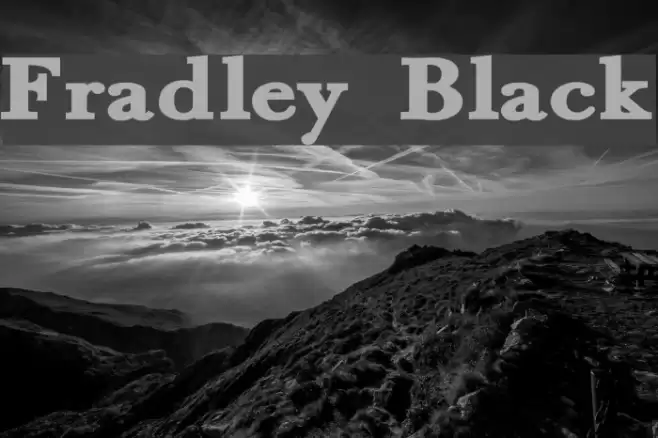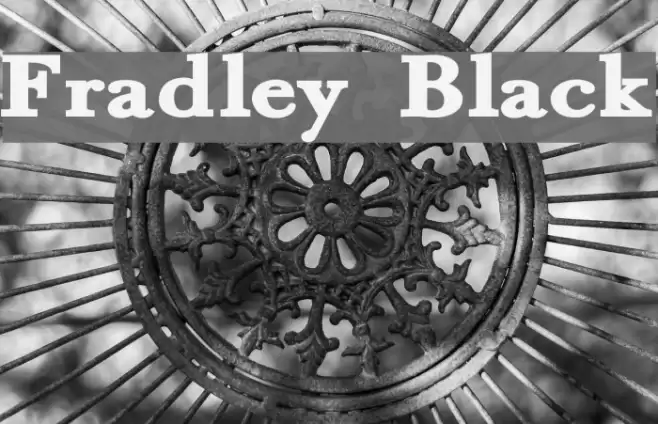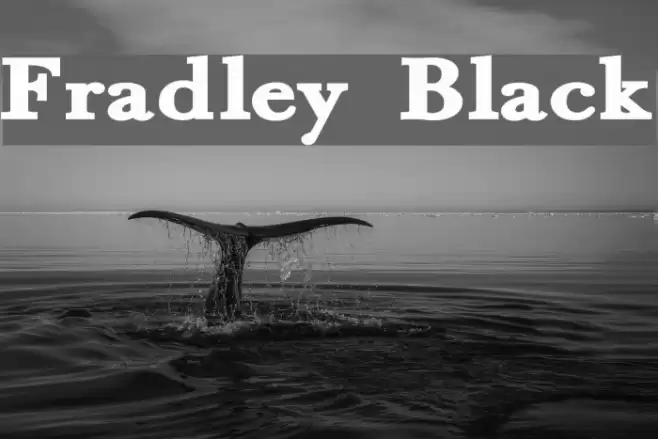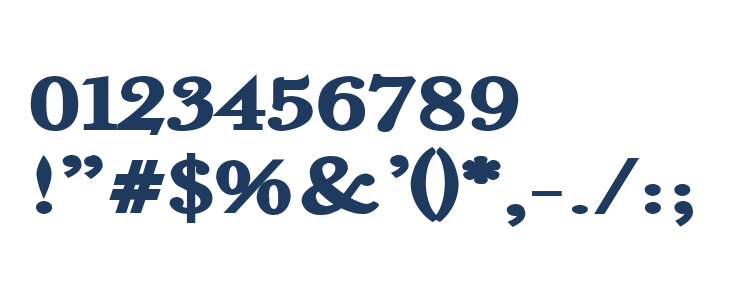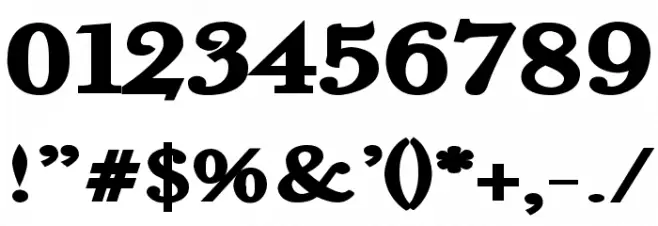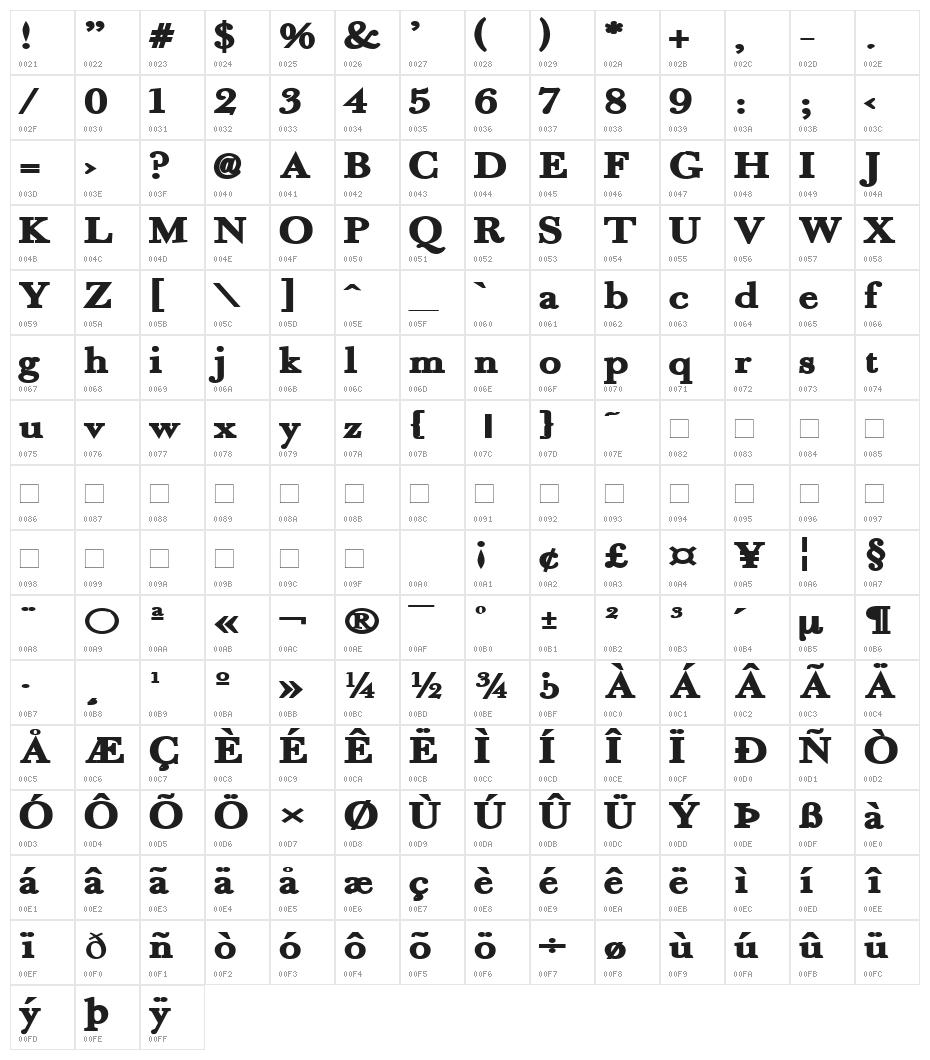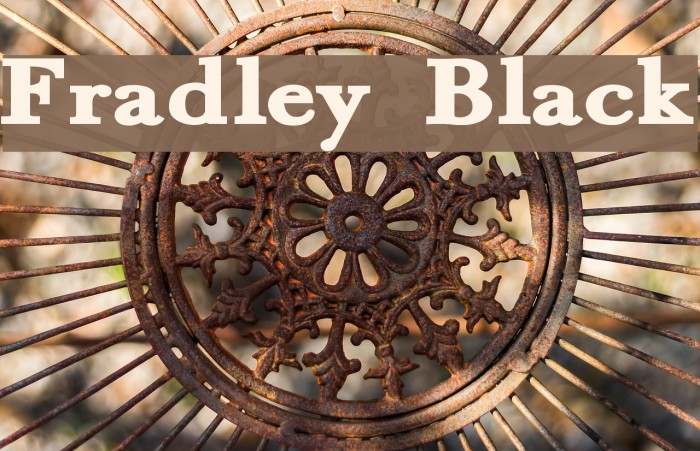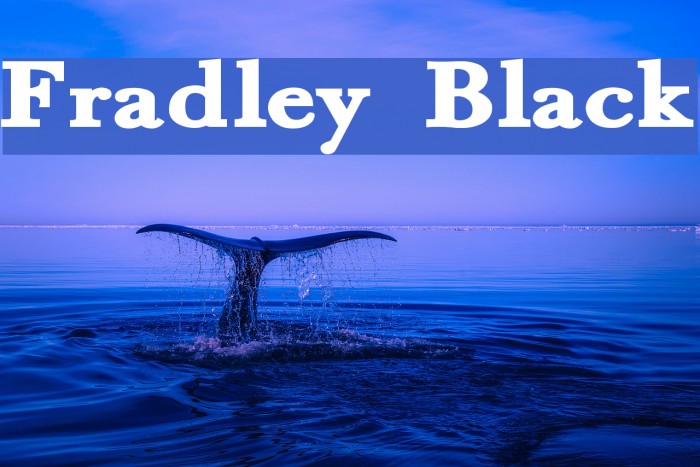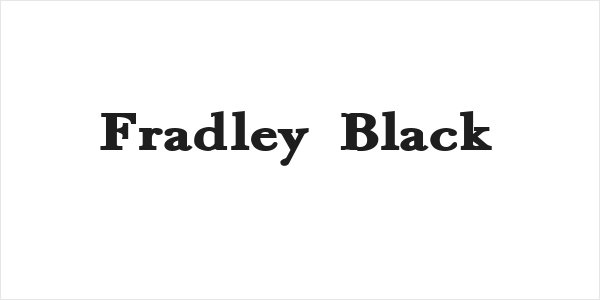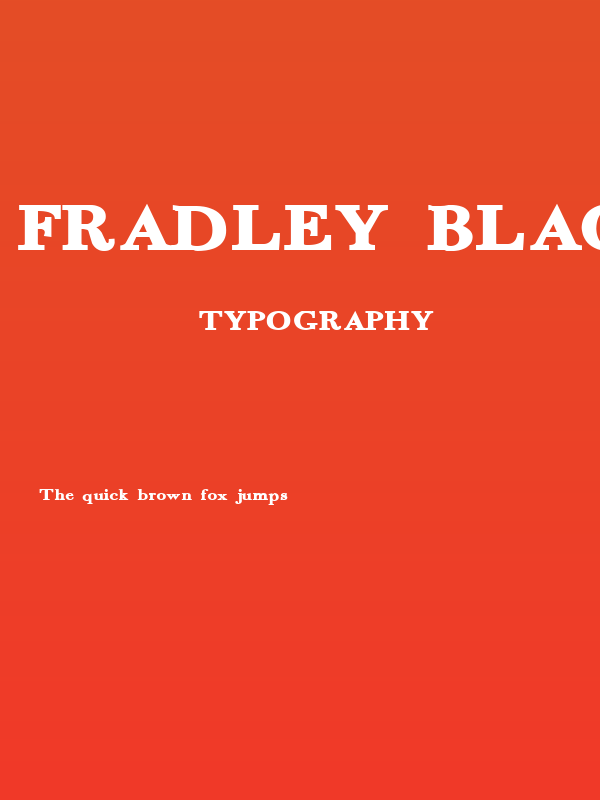
Fradley Black Font
Fradley Black Description
This font exhibits a bold and authoritative presence with its strong serifs and thick strokes. The uppercase letters are robust and commanding, while the lowercase characters maintain a consistent weight, offering a harmonious balance. The numerals are equally bold, ensuring clarity and impact. Special characters are crafted with precision, maintaining the font's overall bold aesthetic. The font's design is reminiscent of traditional serif styles, yet it carries a modern twist, making it versatile for various applications.
A bold serif font with strong strokes and a modern twist from Uncategorized fonts.
- Proposed Projects: Ideal for headlines, branding, editorial design, and any project requiring a strong, authoritative typeface.
- Use Case: Headlines, Logos, Editorial Design